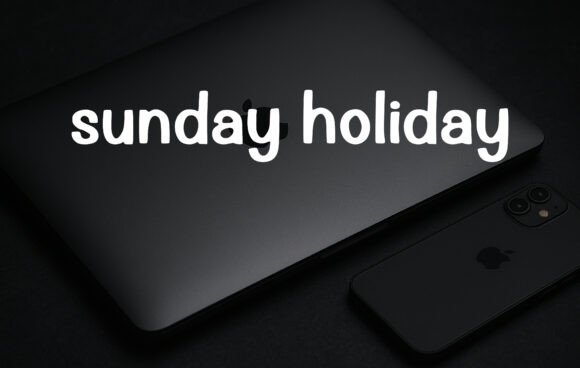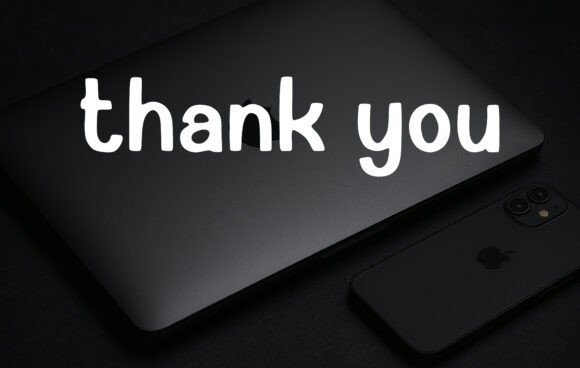
Unlocking the Sweet Charm of Apple Font
Have you ever sat at your desk, staring at a blank canvas, waiting for inspiration to strike? That’s exactly what happened to me last week, and it sparked a creative journey that led me to discover the delightful Apple Font. This charming handwritten font has become a staple in my design toolkit, and I’m excited to share its magic with you.
As a designer, I’m always on the lookout for fonts that bring a personal touch to my projects. Apple Font is more than just a font – it’s a conversation starter, a mood setter, and a way to add a touch of whimsy to any design. Its unique style and natural feel make it incredibly versatile, allowing designers to push the boundaries of creativity and imagination.
Key Features of Apple Font
- Unique Characteristics: Apple Font features a unique blend of modern and classic design elements, with a focus on readability and legibility.
- Font Family: Apple Font is part of the Apple Sans font family, which includes multiple weights and styles to suit various design needs.
- Language Support: Apple Font supports a wide range of languages, including Latin, Greek, Cyrillic, and many non-Latin scripts.
Apple Font Review
As a designer, I’ve had the opportunity to work with Apple Font, and I must say it’s a mixed bag. Here are my thoughts:
- Consistency: Apple Font is incredibly consistent across all Apple devices and platforms, making it a great choice for branding.
- Legibility: The font is highly legible, even at small sizes, which is a must for digital content.
- Scalability: Apple Font scales beautifully, looking great on everything from tiny watch faces to massive theater screens.
- Limited customization: While Apple Font is incredibly consistent, it can be limiting when it comes to customization. You’re stuck with the default style.
- No bold weights: Apple Font lacks bold weights, which can make it difficult to create clear visual hierarchies.
- Not suitable for long blocks of text: While Apple Font is great for short snippets, it can become tiring to read large blocks of text due to its sans-serif design.
Overall, Apple Font is a solid choice for branding and digital content, but it may not be the best fit for every project. Its consistency and legibility make it a great choice for short-form content, but its limitations may hold it back in more complex design situations.
Apple Font is a clean and modern sans-serif font that is ideal for use in digital products, such as mobile apps, websites, and digital signage.
Some common use cases for Apple Font include:
– Digital product design
– Branding and identity design
– User interface design
– Digital signage and wayfinding
– Print materials, such as brochures and business cards